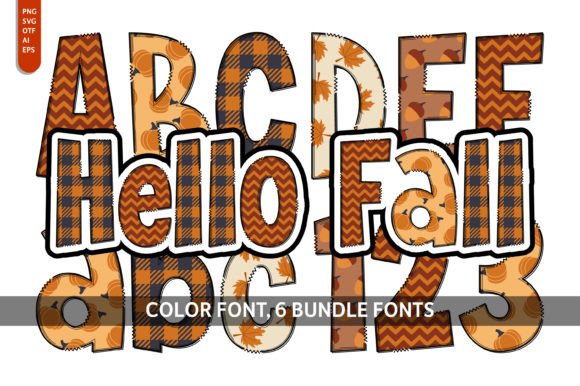
Welcome to the enchanting world of Hello Fall Collection Font! Created by the talented minds at Imagination Switch, this delightful and vibrant font family is specifically designed to celebrate the arrival of the mesmerizing autumn season. Prepare yourself for a breathtaking journey filled with whimsical charm and a burst of colors that will leave you in awe.
With its captivating design, Hello Fall Collection Font is the perfect companion for all your creative endeavors. Each letter is meticulously crafted and adorned with an array of beautiful and lively fall-themed elements. Picture yourself surrounded by colorful leaves gently falling from the trees, pumpkins adorning every corner, and the unmistakable aroma of freshly baked apple pies in the air. Hello Fall captures the very essence of this magical season, bringing joy and warmth to your designs.
Whether you're a professional designer or a passionate hobbyist, Hello Fall Collection Font is a must-have addition to your creative toolbox. Let your imagination run wild as you infuse your projects with the spirit of autumn. From captivating book covers to eye-catching posters, this font collection will elevate your designs to new heights.
What sets Hello Fall Collection Font apart is not just its enchanting aesthetics, but also its versatility. With an extensive range of styles and variations, you have the freedom to express your creativity in countless ways. Whether you're aiming for a playful and whimsical look or a more elegant and sophisticated feel, Hello Fall has got you covered.
But it's not just about appearances. Hello Fall Collection Font is designed to evoke emotions and stir hearts. It speaks directly to the soul of your audience, captivating their attention and leaving a lasting impression. Imagine the joy and excitement your designs will bring as they transport people into the magical world of autumn.